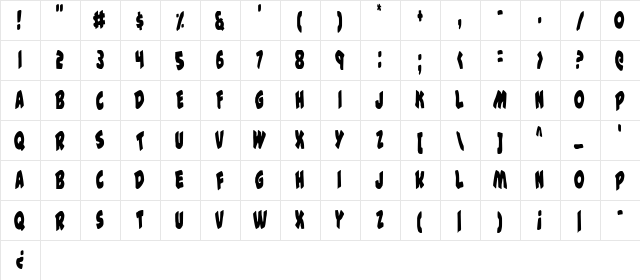
#44 Font Condensed Condensed
Design Context for #44 Font Condensed Typeface
#44 Font Condensed is a composed and adaptable typeface that performs quietly and consistently across a wide range of design contexts. The condensed width makes it efficient for tight spaces without sacrificing legibility.